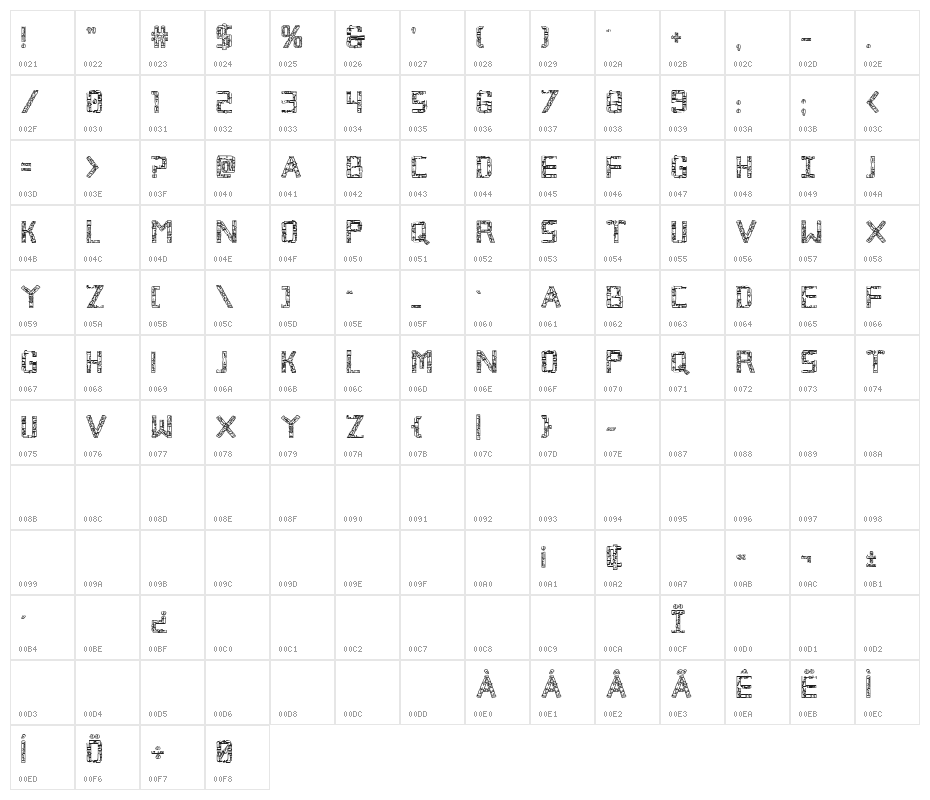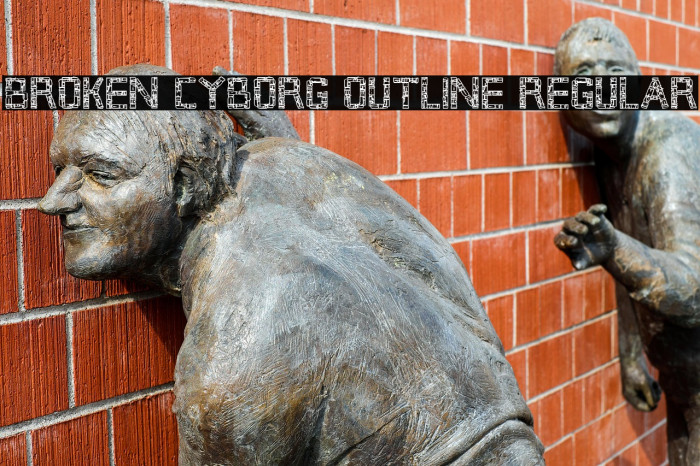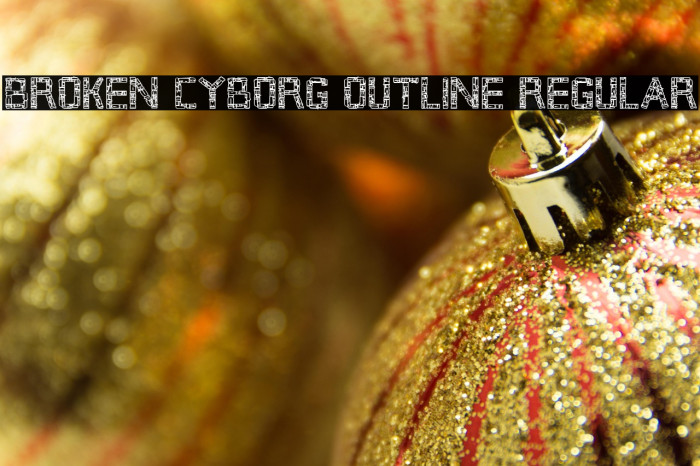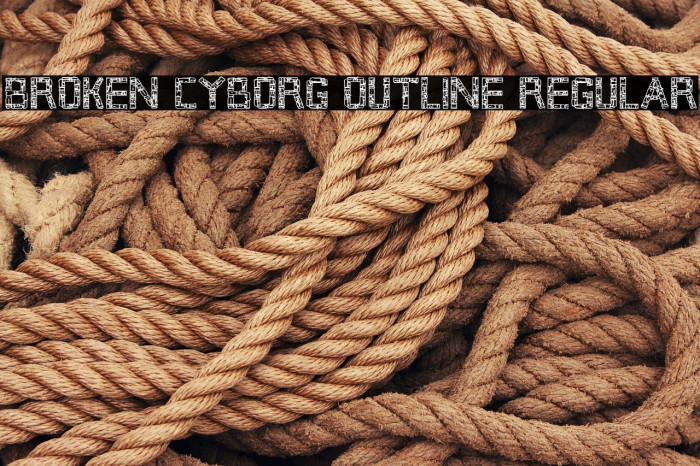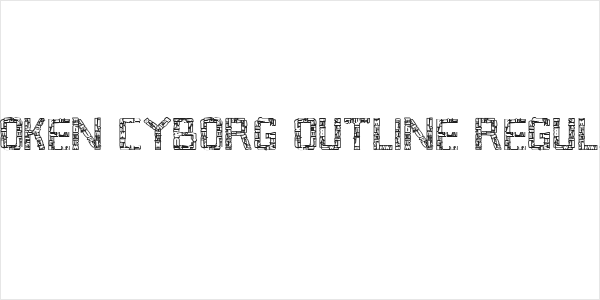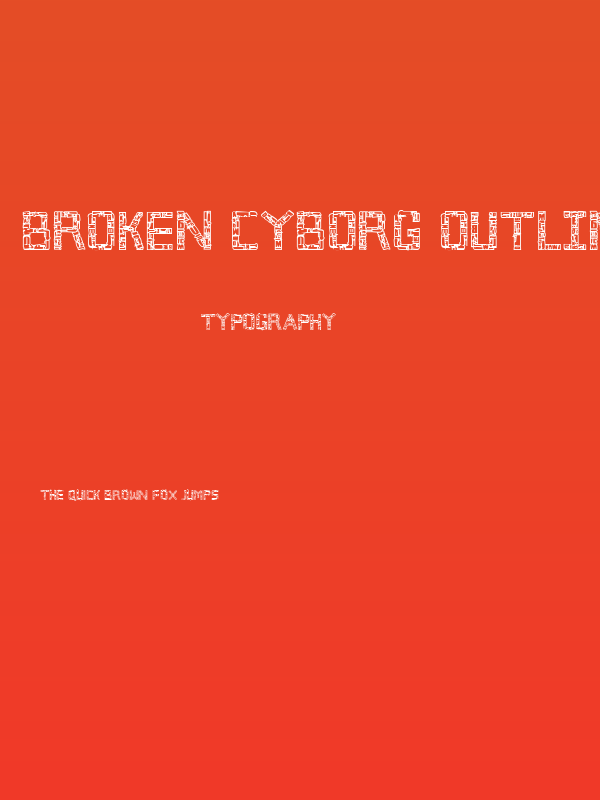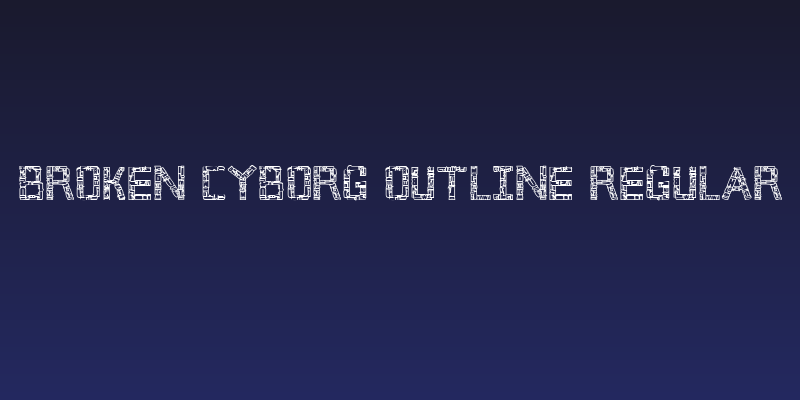
Broken Cyborg Outline Regular Font
Broken Cyborg Outline Regular Description
This font features a unique, futuristic design with an outline style that resembles mechanical or robotic elements. Each character is constructed with intricate line work, giving it a complex and detailed appearance. The font maintains a consistent structure across uppercase, lowercase, numbers, and special characters, creating a cohesive look. Its geometric and angular shapes contribute to a modern and tech-inspired aesthetic, making it stand out in any design. The outline nature of the font adds a layer of depth and dimension, making it suitable for eye-catching headlines or creative projects.